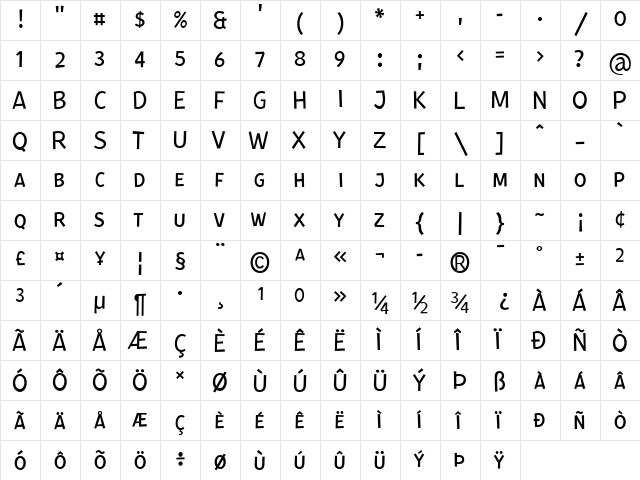
Kurri Island Caps Thin Regular
Design Context for Kurri Island Caps Thin Typeface
Kurri Island Caps Thin is a composed and adaptable typeface that performs quietly and consistently across a wide range of design contexts. The delicate stroke weight brings airiness and refinement to layouts.